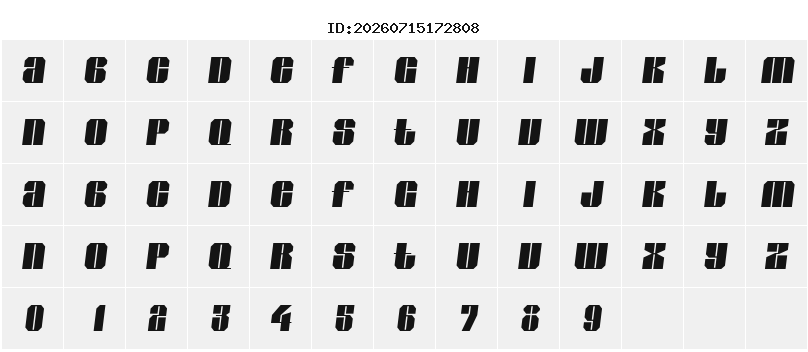
• Font Name: a_Glade
• Full Font Name: a_Glade Italic
• Designer: W.Chufarofsky & M.Slutsker
About a_Glade.ttf
a_Glade.ttf is a modern, elegant sans-serif font designed for ultimate readability and visual harmony. Perfect for branding, headlines, web design, and print materials.